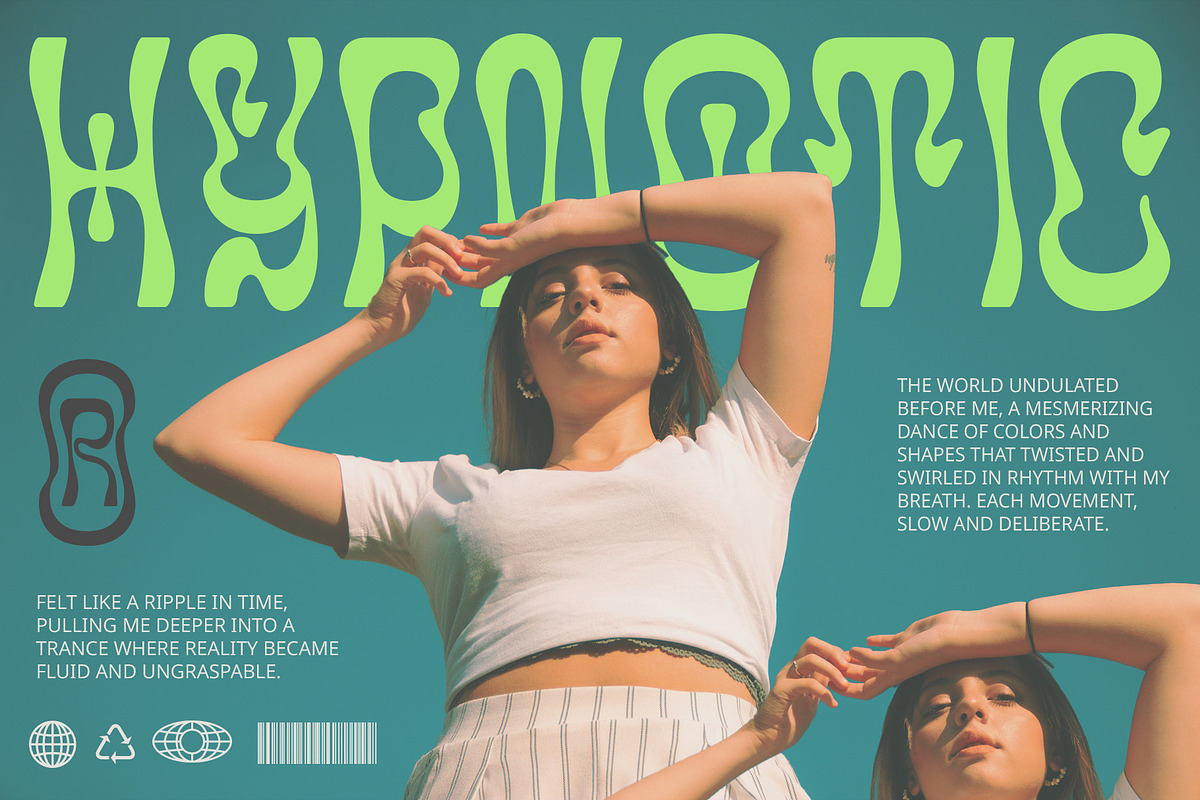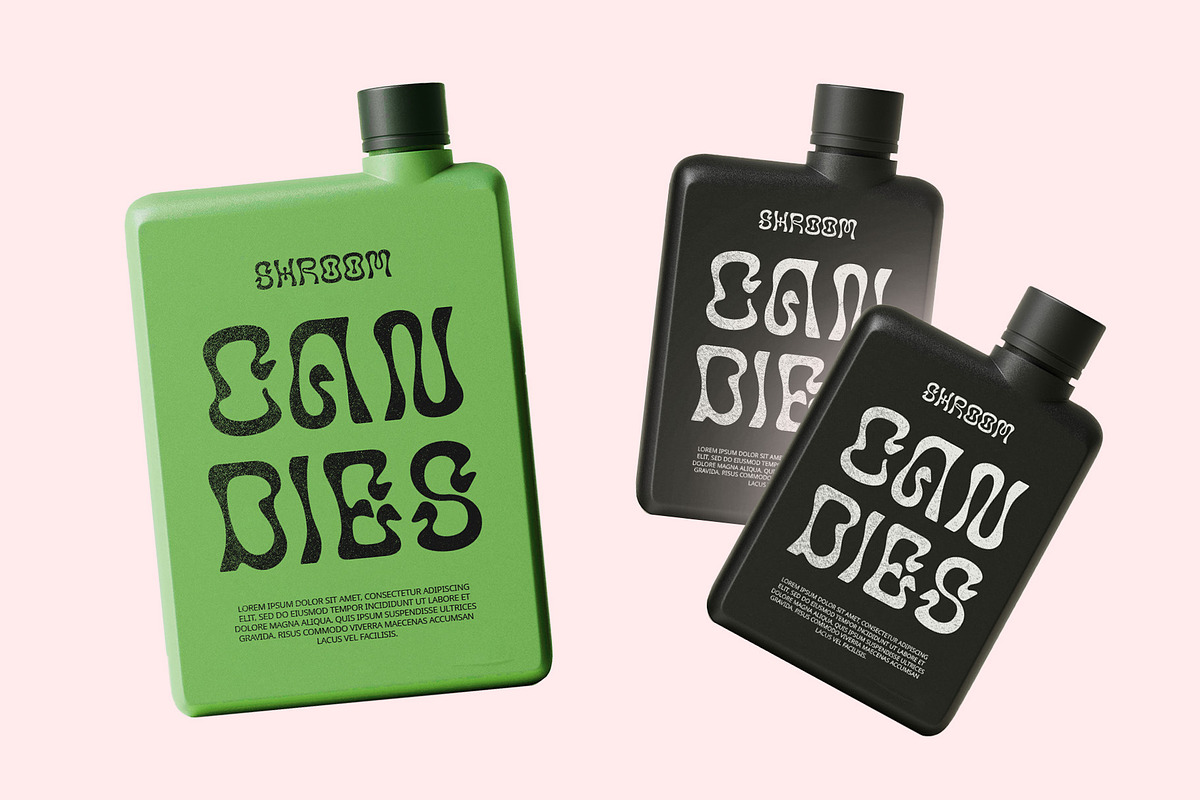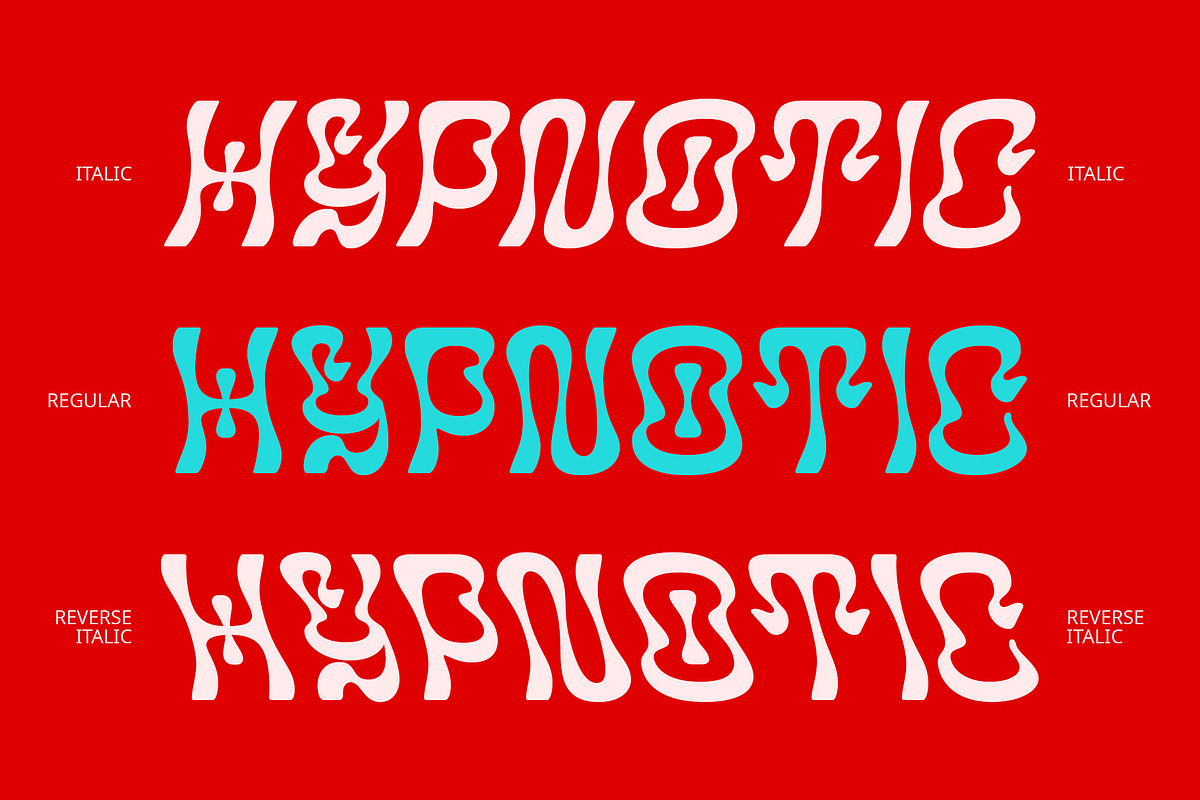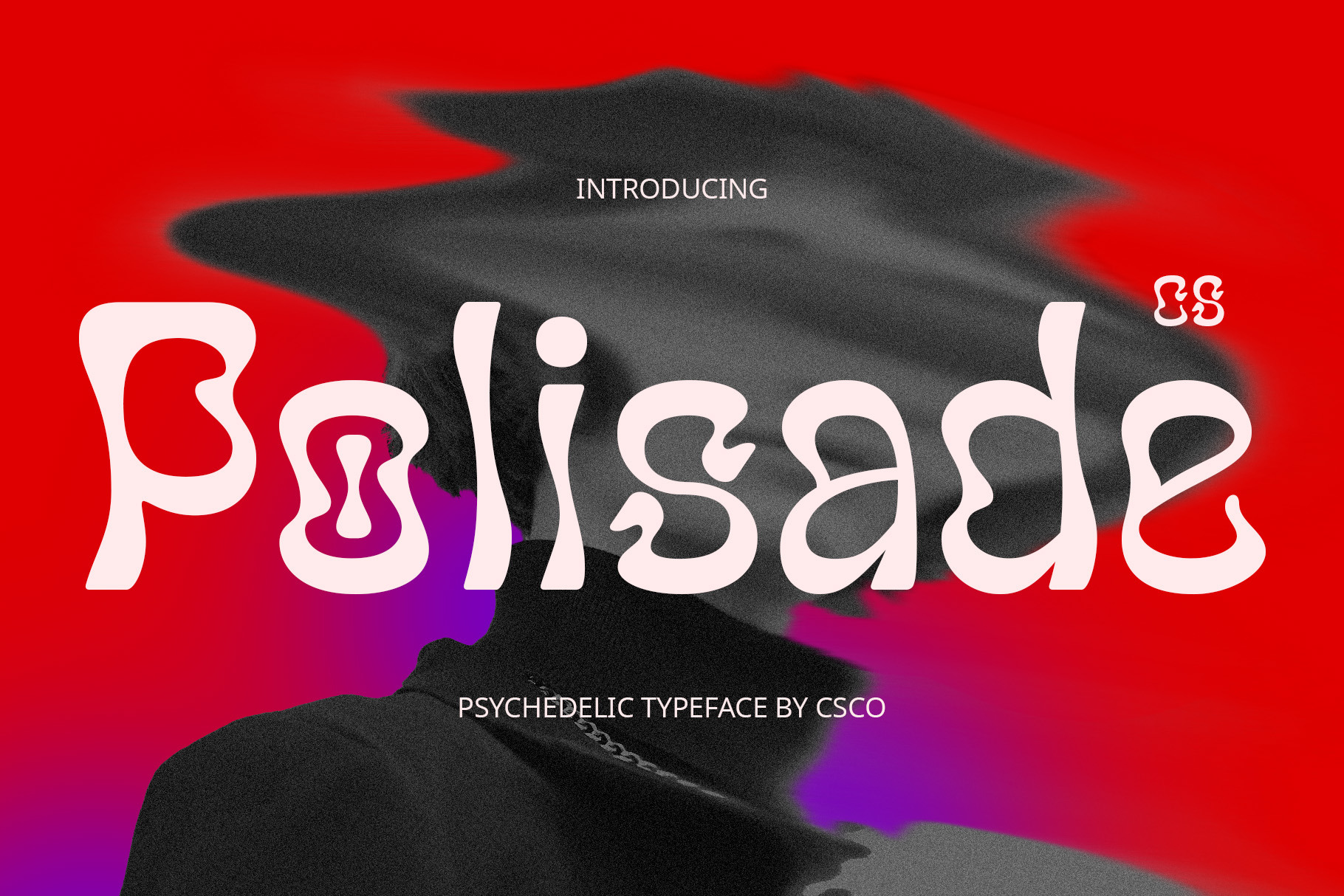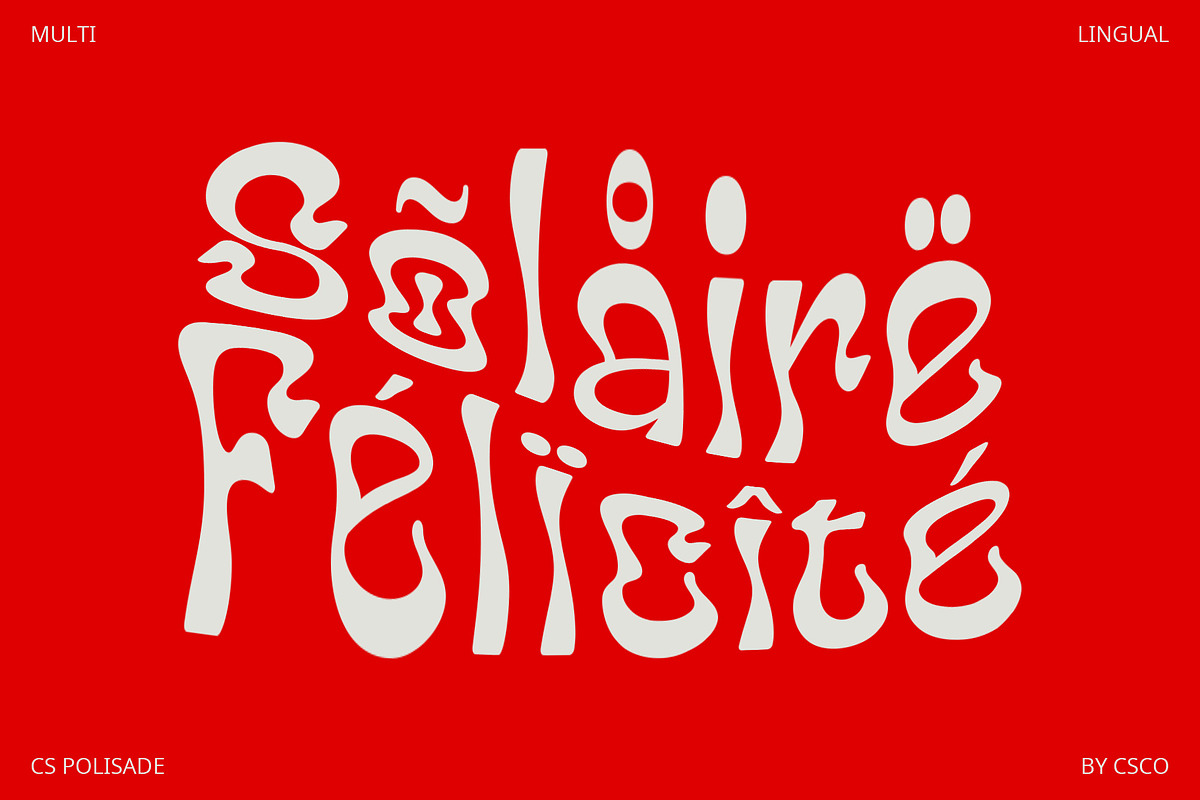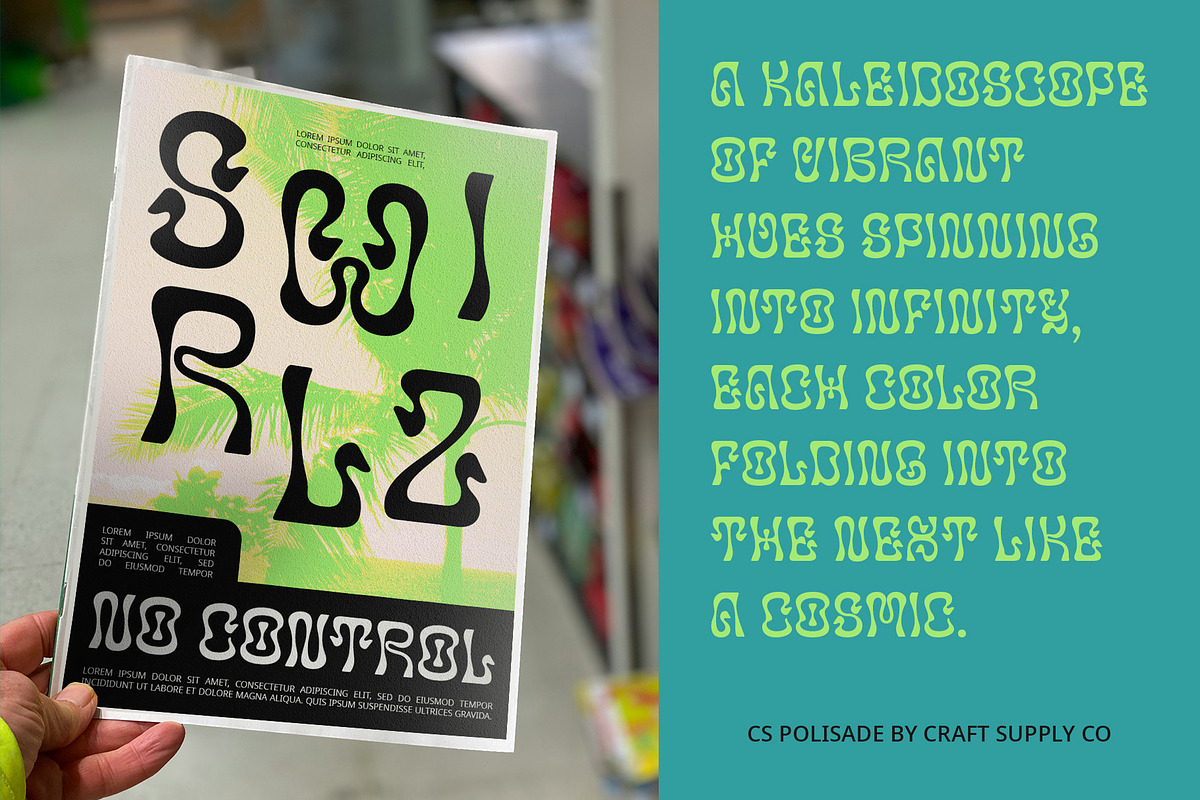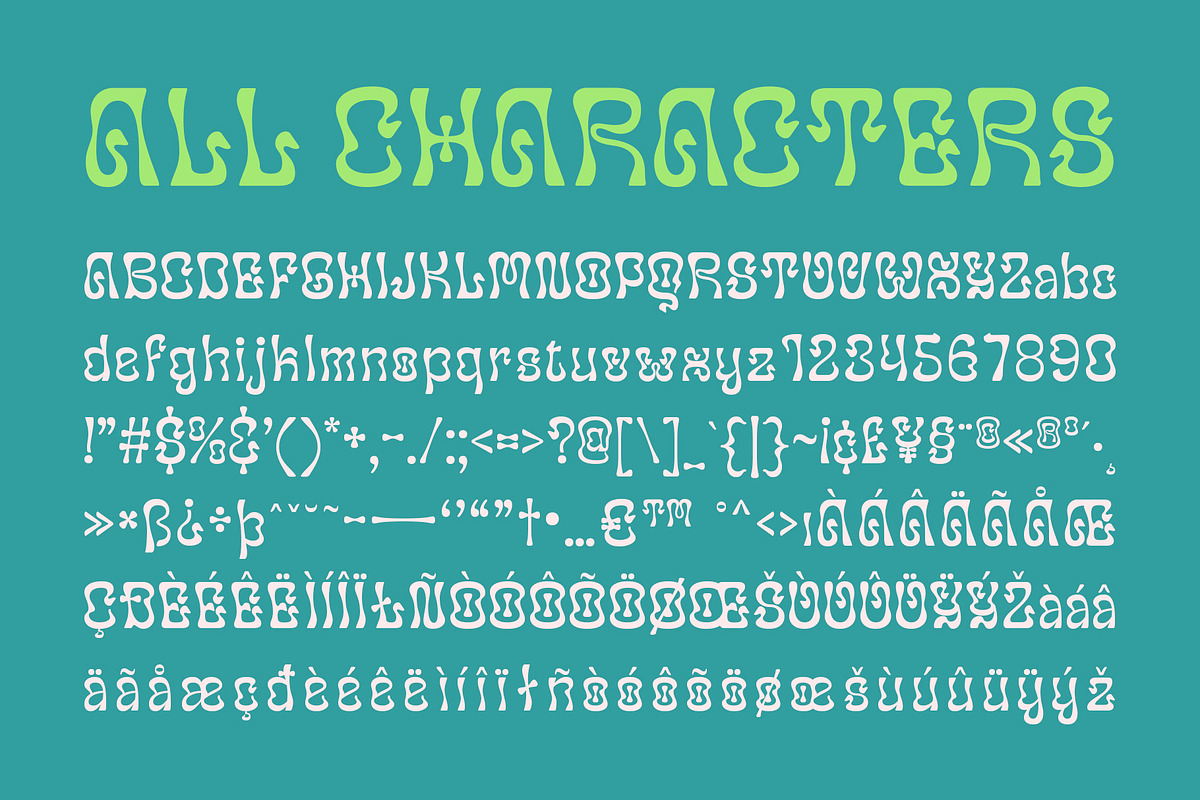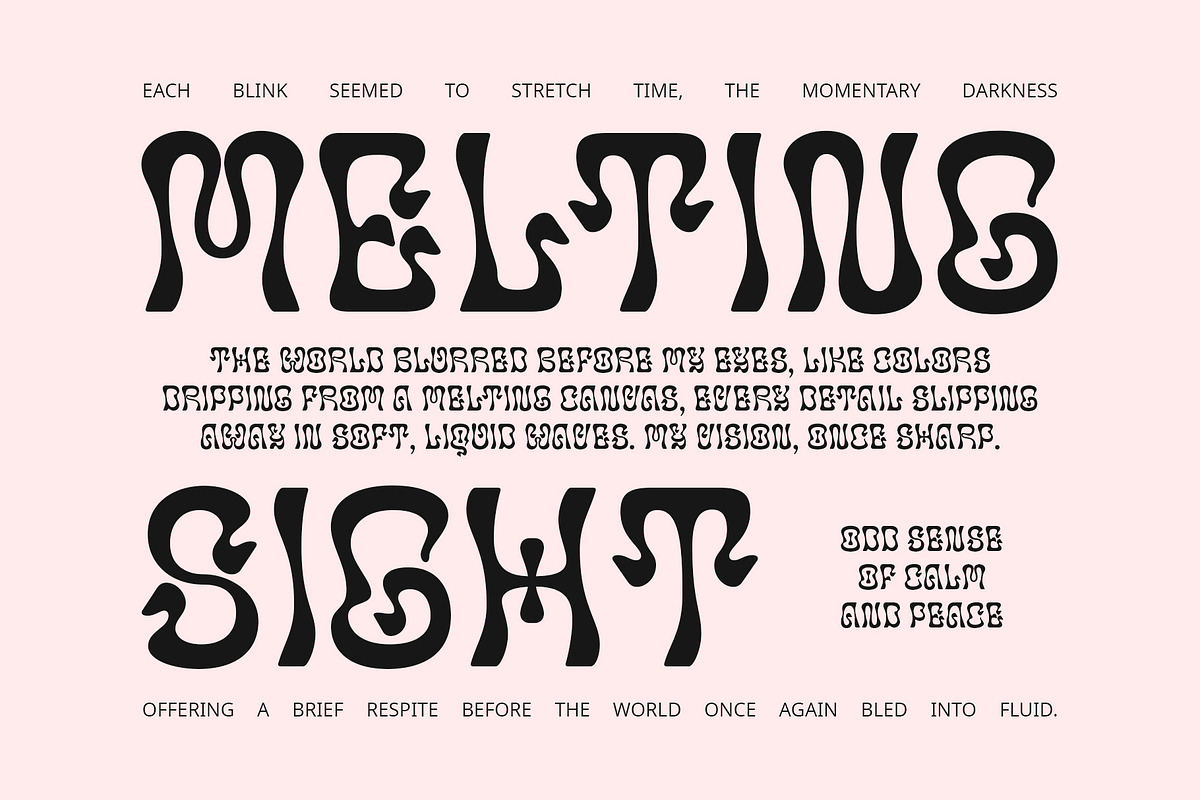
CS Polisade – Psychedelic Font
CS Polisade – Psychedelic Font: Bold Creativity with a Retro Twist
Display Font with Psychedelic and Funky Shapes CS Polisade is a dynamic display font that combines unique psychedelic and funky shapes to create a bold and imaginative design. Its letterforms are characterized by curving, twisting, and distorted elements, resulting in an energetic and colorful appearance. Inspired by the vibrant visual styles of the 1960s and 1970s, this font brings a nostalgic and cheerful touch to your designs.
Nostalgic and Cheerful Aesthetic The psychedelic influence of CS Polisade infuses a sense of nostalgia and playfulness into its design. The font’s retro elements evoke the lively spirit of past decades, making it ideal for projects that aim to capture a vibrant and upbeat atmosphere. Its bold, creative look adds a layer of excitement and character, perfect for standing out in any context.
Ideal for Music Posters and Creative Events CS Polisade excels in applications where a striking and character-filled appearance is essential. Whether you’re designing music posters, promotional materials for creative events, or any project that requires a visually engaging style, this font ensures your designs will be both memorable and impactful. Its psychedelic flair and funky design make it a standout choice for capturing attention and conveying a dynamic, colorful vibe.